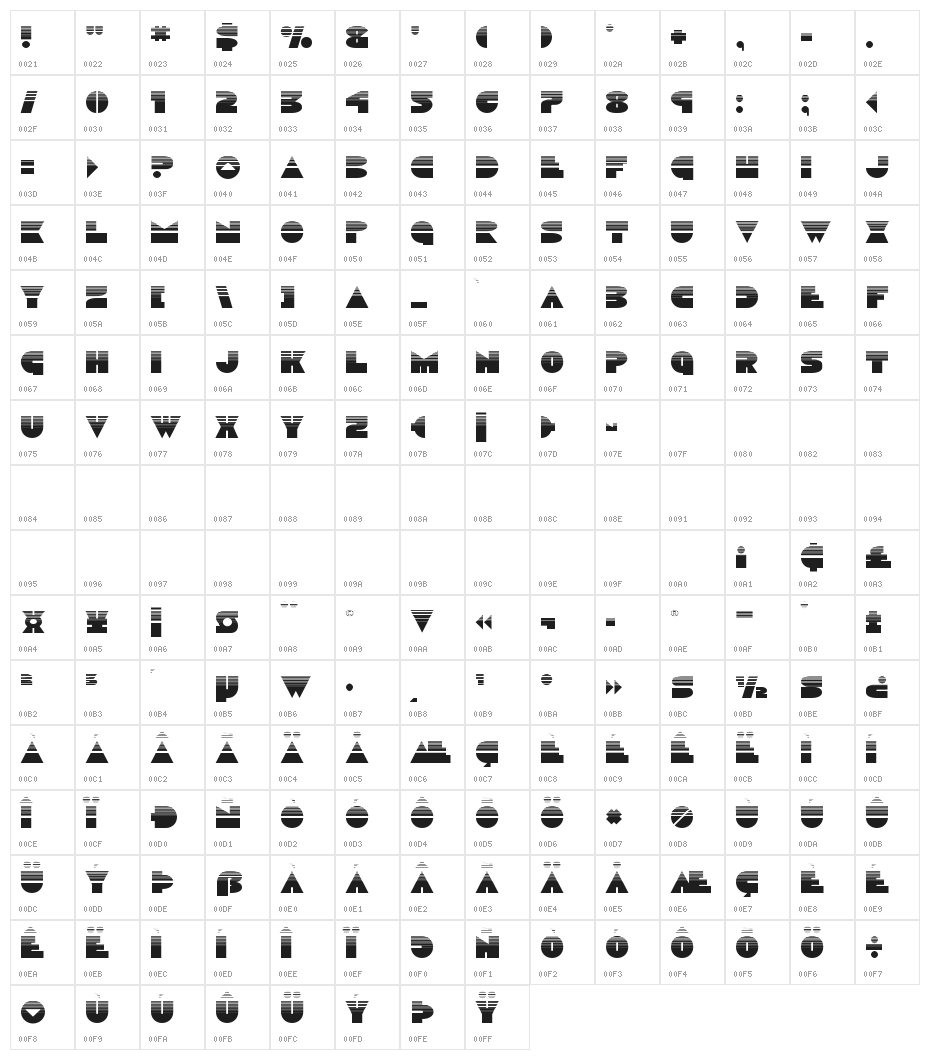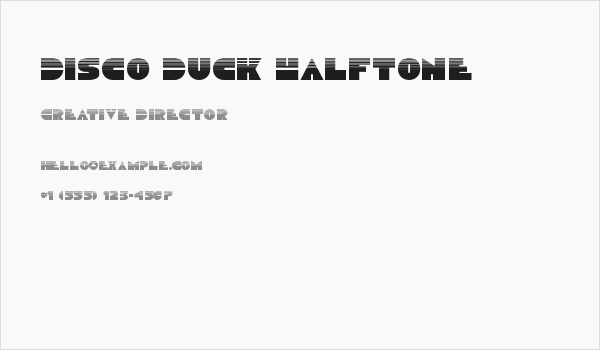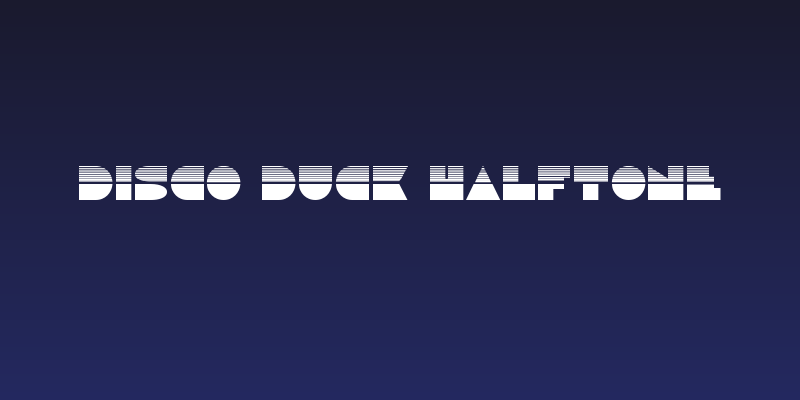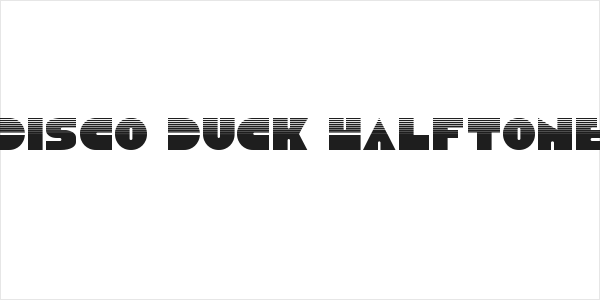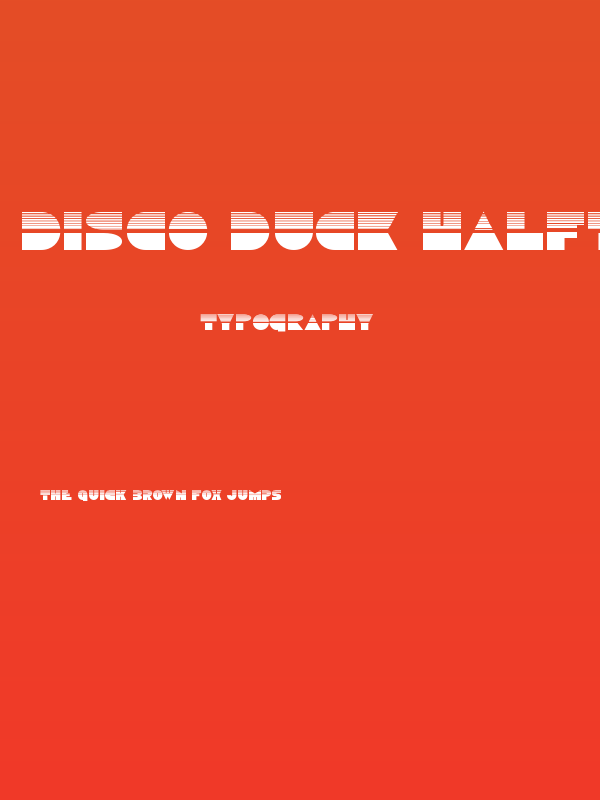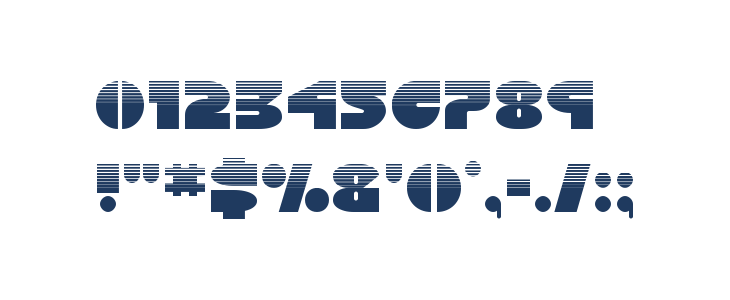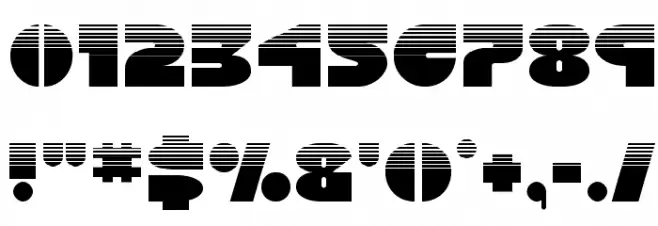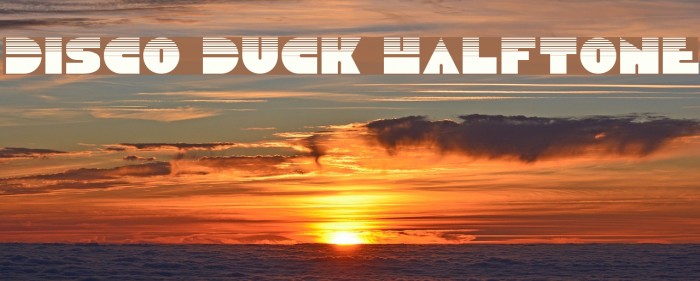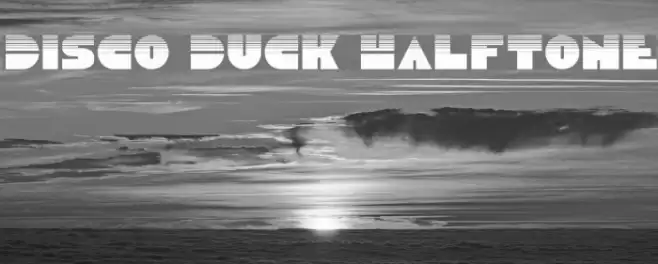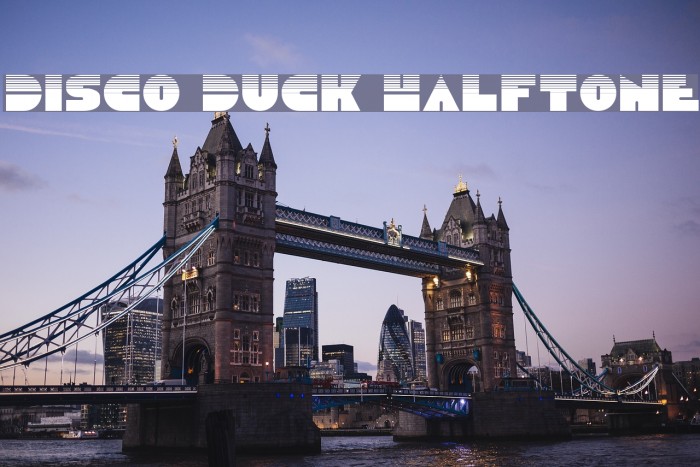
Disco Duck Halftone Font
This font features a bold, geometric design with a halftone effect that gives it a distinct, retro-futuristic appearance. The characters are constructed using solid, block-like shapes combined with horizontal lines that create a sense of movement and rhythm. The uppercase letters are particularly striking, with their strong, angular forms and unique patterning. The numerals and special characters maintain this cohesive style, ensuring versatility across various applications. The font's boldness and unique aesthetic make it ideal for projects that require a standout, eye-catching typeface.
| Overall Style | Retro-Futuristic |
| Proposed Projects | Ideal for posters, album covers, branding, and any design needing a bold, retro-futuristic touch. |